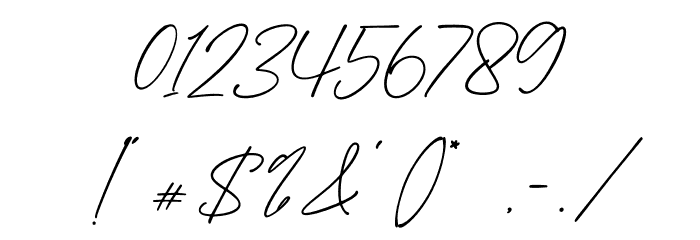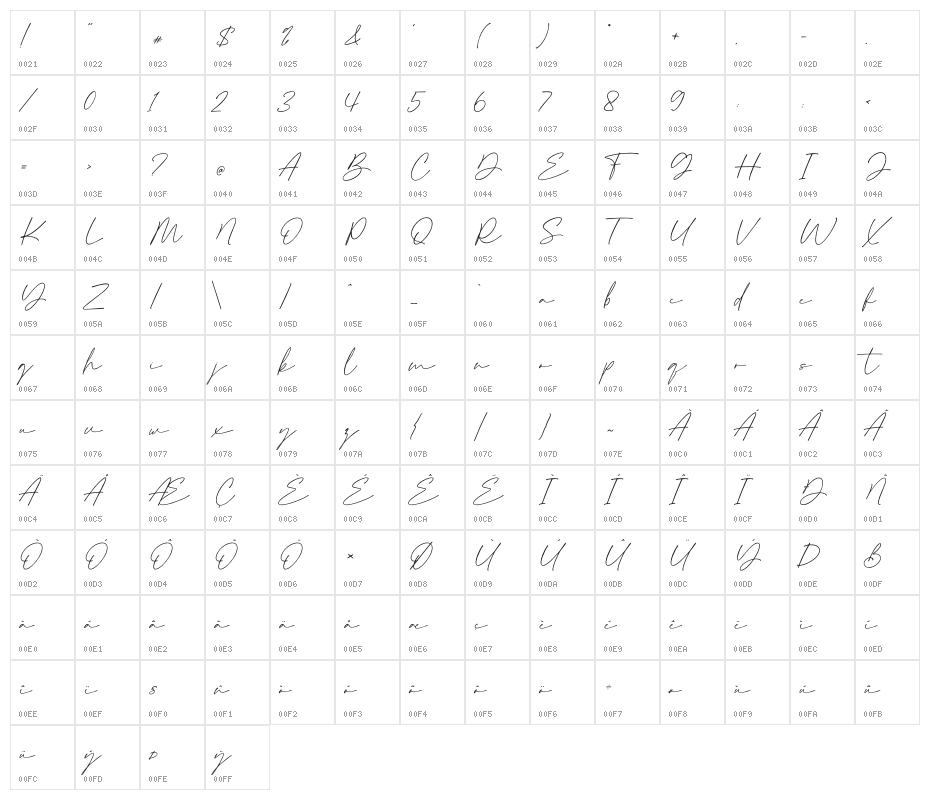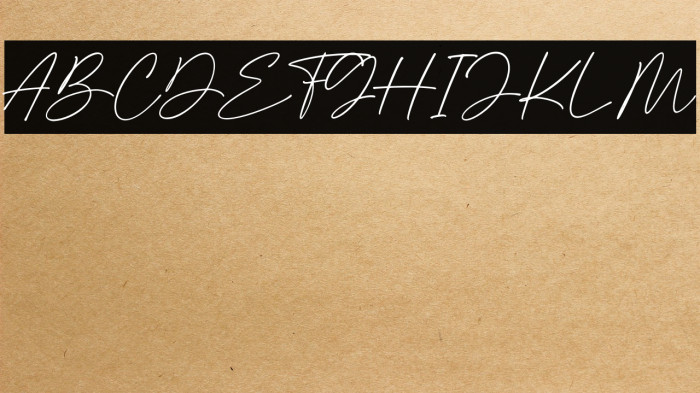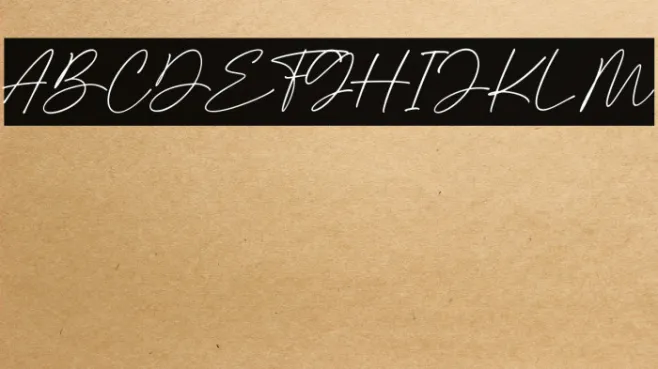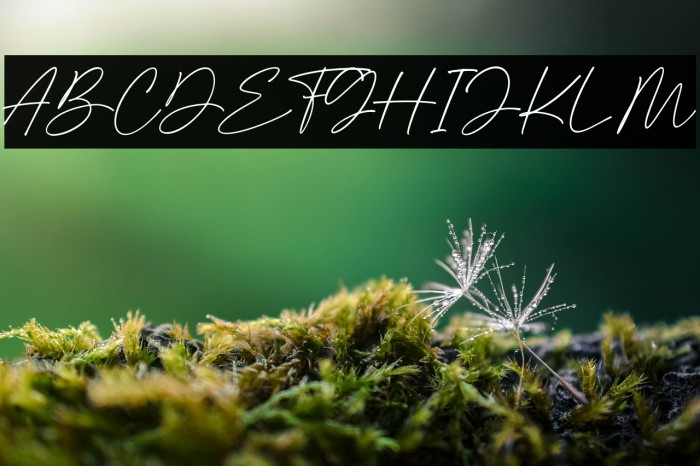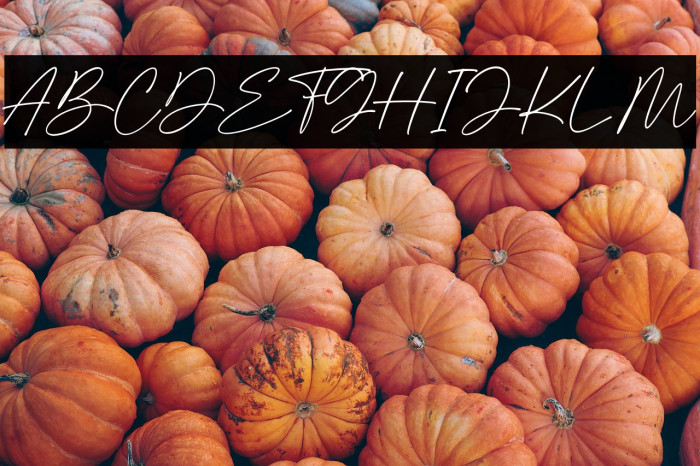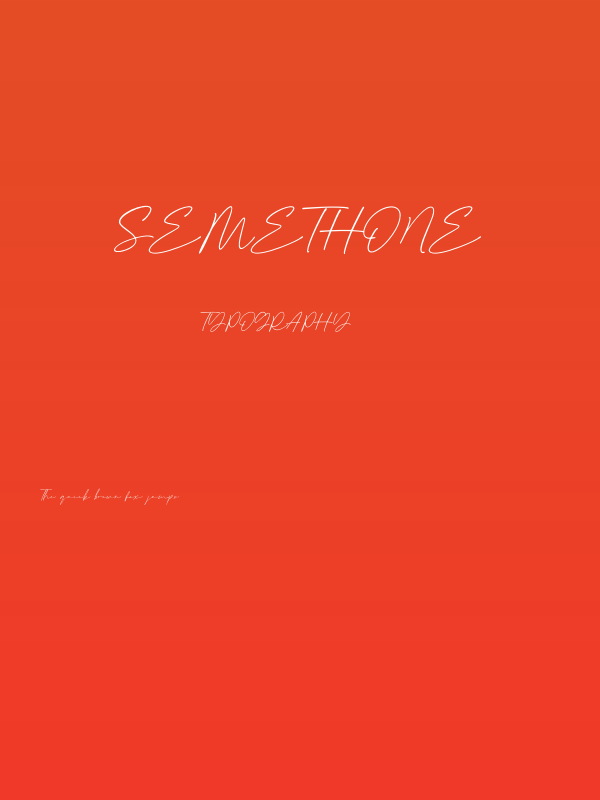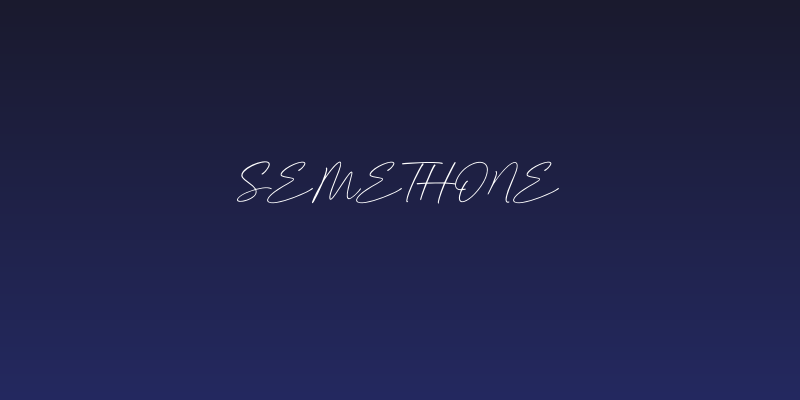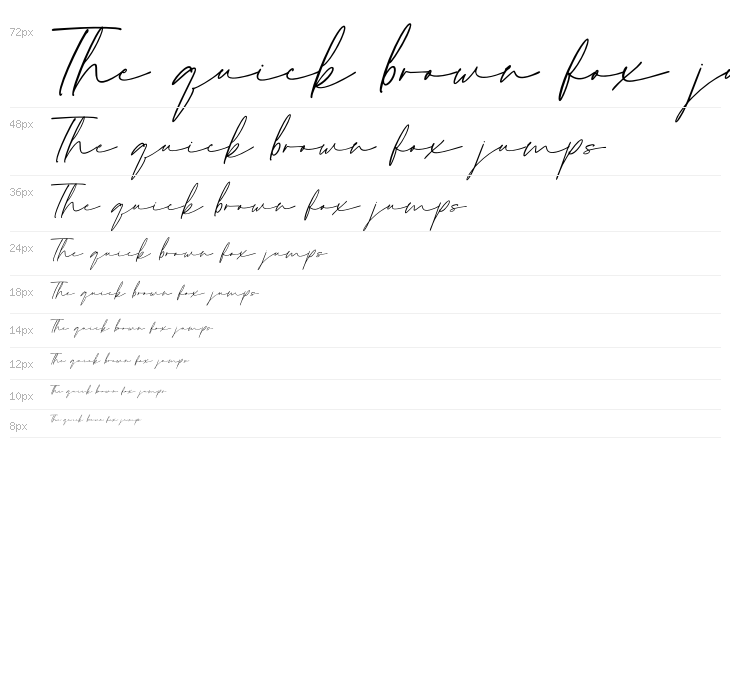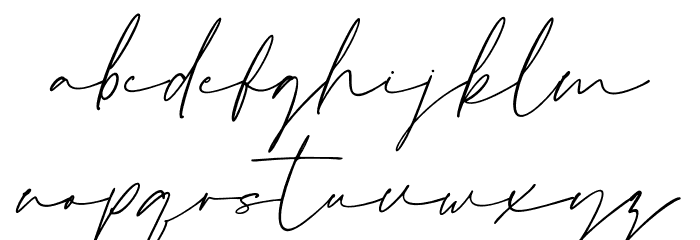
Semethone Font
Semethone Description
This font features a fluid, cursive style that mimics elegant handwriting. The characters are connected with smooth, flowing lines, giving it a personal and artistic touch. The uppercase letters are slightly larger and more pronounced, while the lowercase letters maintain a consistent, graceful flow. The numbers and special characters are designed to match the overall aesthetic, with a delicate and sophisticated appearance. This font is perfect for adding a touch of elegance and personality to any design project.
| Use Case | Logos, Invitations, Artistic designs |
| Proposed Projects | Ideal for wedding invitations, personal branding, greeting cards, and artistic projects. |